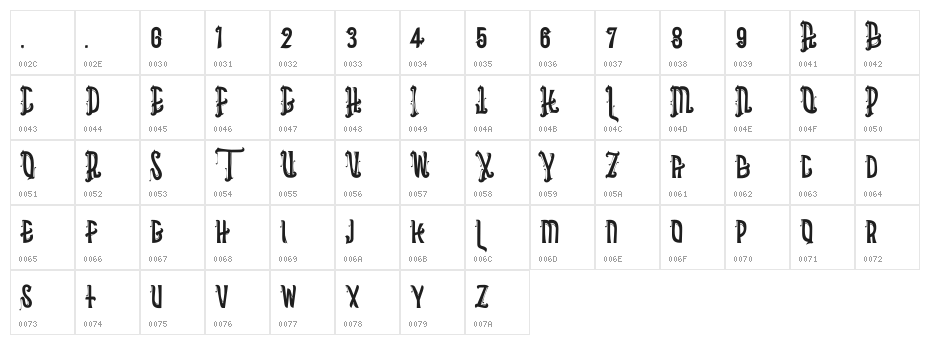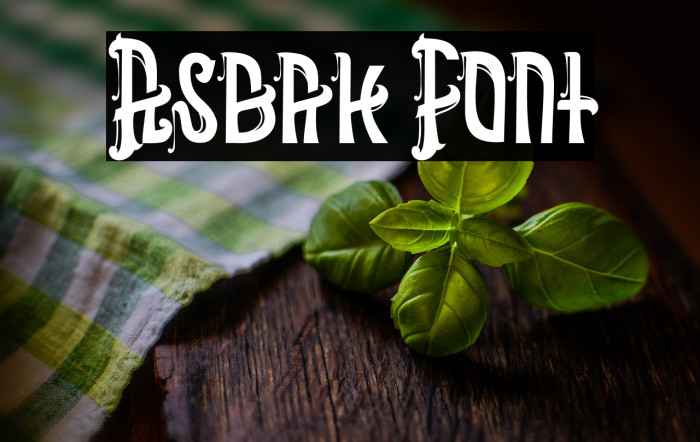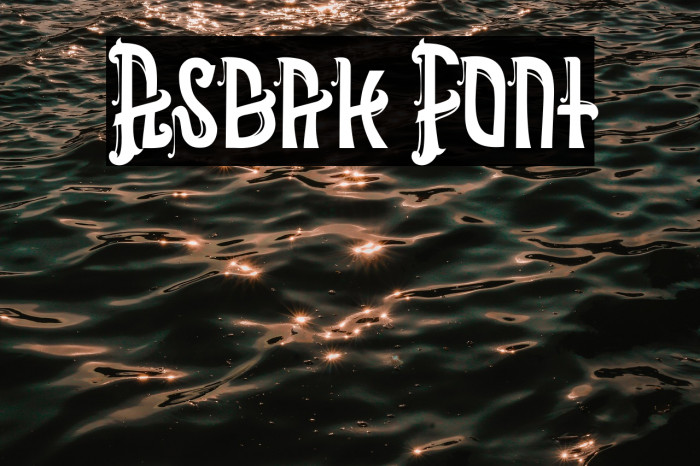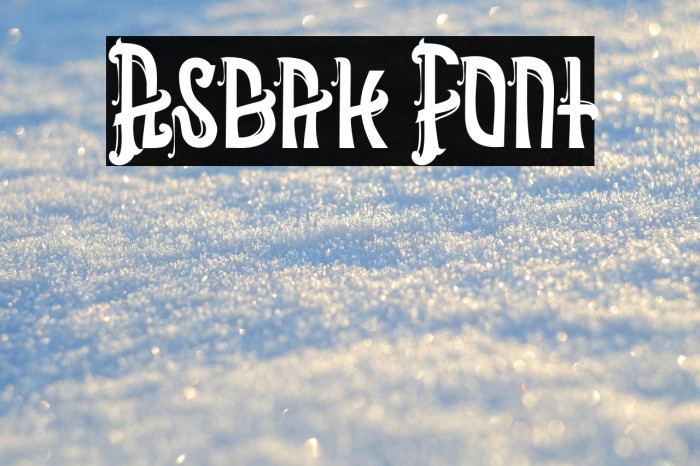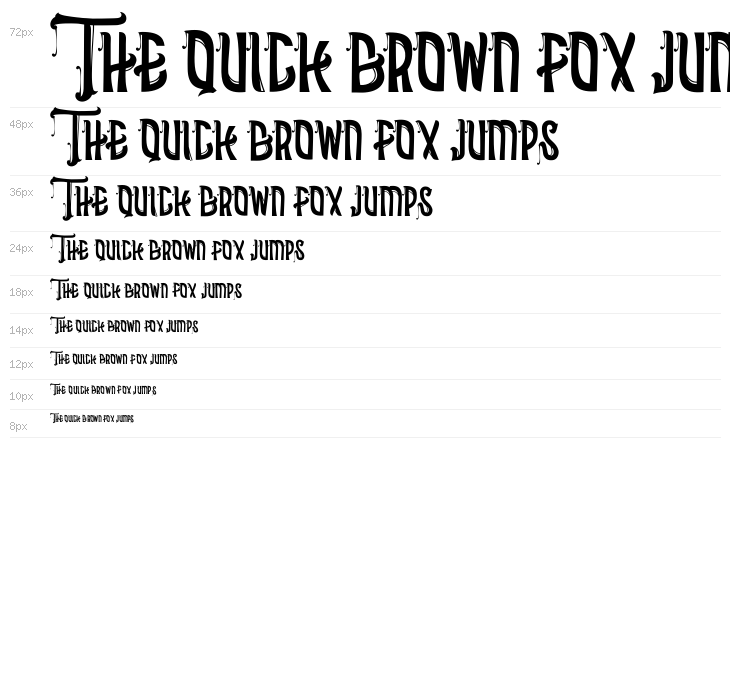
Asbak Font
Asbak Description
This font features a bold and decorative style with intricate details that give it a unique and artistic appearance. The characters are embellished with flourishes and curls, adding a touch of elegance and complexity. The uppercase letters are particularly ornate, while the lowercase letters maintain a consistent style with slightly less embellishment. The numbers and special characters follow the same decorative theme, making the font cohesive throughout. Its boldness and decorative elements make it stand out, suitable for projects that require a strong visual impact.